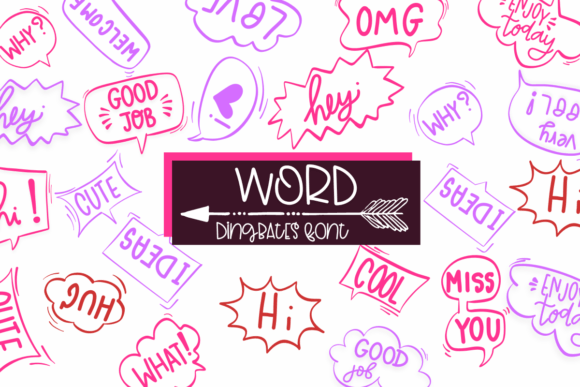
Introducing Word Font: A Sketched Theme Style Dingbats Font
Are you looking for a unique and creative font to enhance your projects? Look no further than Word Font, a dingbats font with a sketched theme style. This font is perfect for a variety of creative projects, including wedding invitations, DIY crafts, decorations, logos, and many other ideas. In this article, we’ll explore the features and benefits of Word Font, and show you how to use it to take your creative projects to the next level.
Key Features of Word Font
- Sketched Theme Style: Word Font has a unique sketched theme style that gives it a hand-drawn, organic feel.
- Dingbats Font: Word Font is a dingbats font, which means it’s made up of symbols and icons rather than traditional letters and numbers.
- Versatile: Word Font can be used for a wide range of creative projects, from wedding invitations to DIY crafts and decorations.
Creative Uses for Word Font
Word Font is a versatile font that can be used for a wide range of creative projects. Here are some ideas to get you started:
- Wedding Invitations: Use Word Font to create unique and personalized wedding invitations that set the tone for your special day.
- DIY Crafts: Word Font is perfect for DIY crafts, such as making your own cards, gift tags, and decorations.
- Decorations: Use Word Font to create custom decorations, such as garlands, banners, and signs.
- Logos: Word Font can be used to create custom logos for your business or personal brand.
- Social Media Graphics: Use Word Font to create eye-catching social media graphics, such as quote graphics and inspirational quotes.
Tips for Using Word Font
Here are some tips for using Word Font to get the best results:
- Experiment with Different Sizes: Word Font looks great in a variety of sizes, so don’t be afraid to experiment to find the perfect size for your project.
- Combine with Other Fonts: Word Font can be paired with other fonts to create a unique and interesting look.
- Use with Color: Word Font looks great in a variety of colors, so don’t be afraid to add some color to your project.
- Keep it Simple: Word Font is a bold font, so it’s best to keep your design simple to avoid overwhelming the font.
Benefits of Using Word Font
There are many benefits to using Word Font for your creative projects. Here are a few:
- Unique and Creative: Word Font is a unique and creative font that will help your project stand out.
- Versatile: Word Font can be used for a wide range of creative projects, making it a great addition to your font library.
- Time-Saving: Word Font can save you time and effort by providing a quick and easy way to add a creative touch to your projects.
Word Font is a unique and creative dingbats font with a sketched theme style. It’s perfect for a wide range of creative projects, from wedding invitations to DIY crafts and decorations. With its easy-to-use design and versatile features, Word Font is a great addition to any font library. Whether you’re a designer, DIY enthusiast, or just looking for a creative way to express yourself, Word Font is a great choice.